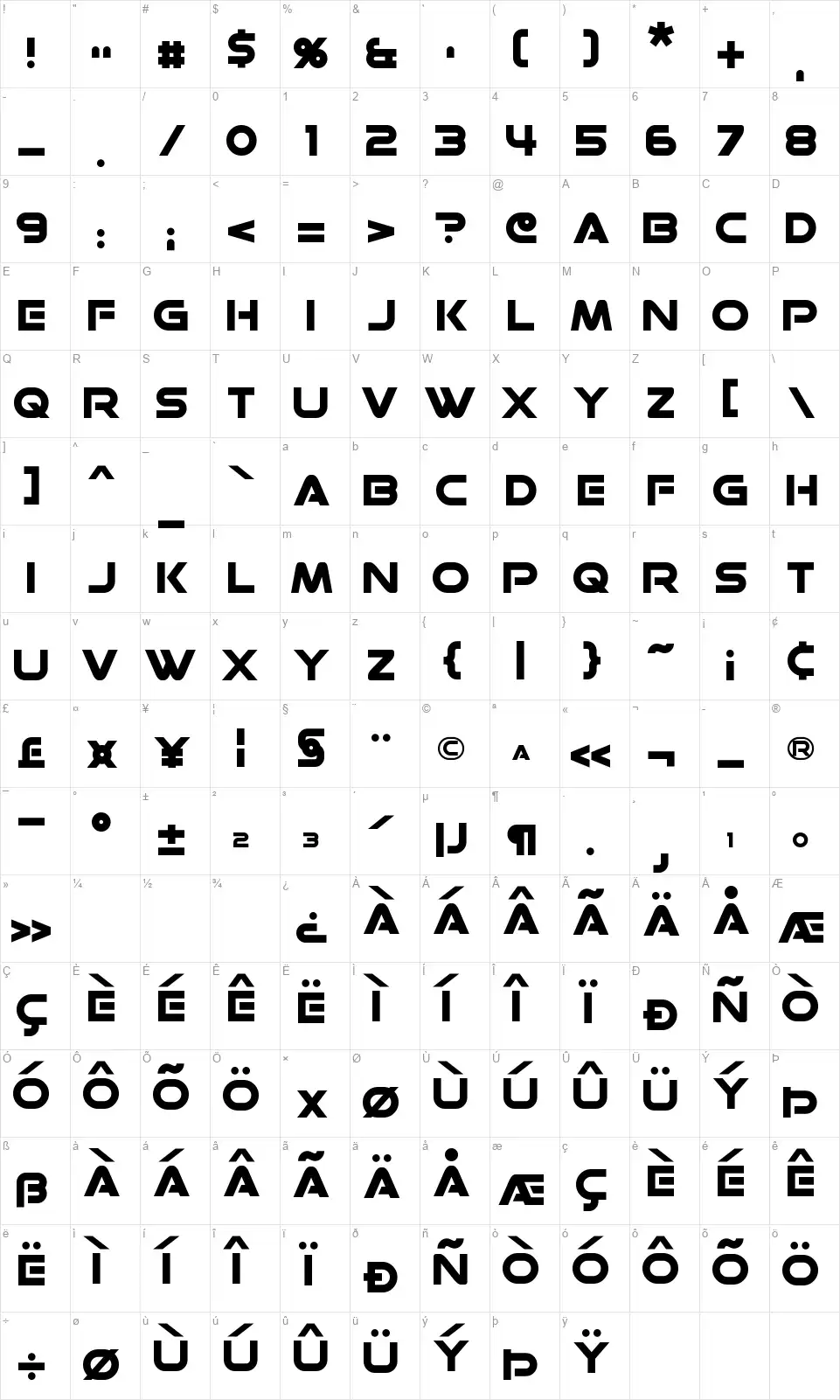
Datacron
Based on the copy-text of the 2012-2013 "Fall of Cybertron" toyline. A thick, bold, tech-looking font with heavy spacing. Includes extended characters and Euro. Includes bolt, italic, and condensed versions.